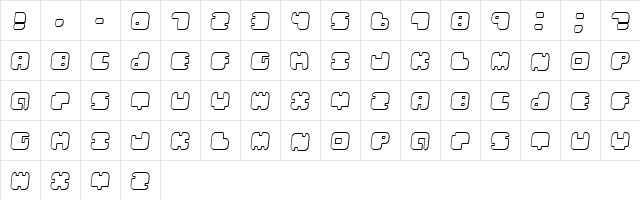
Leben Shadow Italic
Design Context for Leben Shadow Typeface
Leben Shadow is built around its visual character rather than neutral utility — its distinctive forms are designed to make an impression at display sizes. The dynamic lean of this cut emphasises speed and emphasis in any layout.
Font Pairing: Pair with a clean neutral sans-serif for body copy to let Leben Shadow's character lead without overwhelming the composition.
Pro Tip: Use Leben Shadow exclusively at display sizes — it was designed to be seen, not read at length. Let a neutral companion handle body copy.